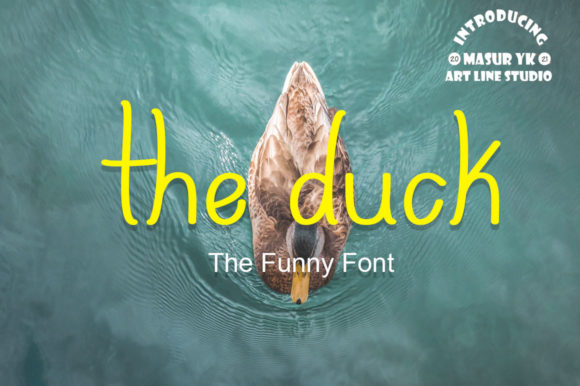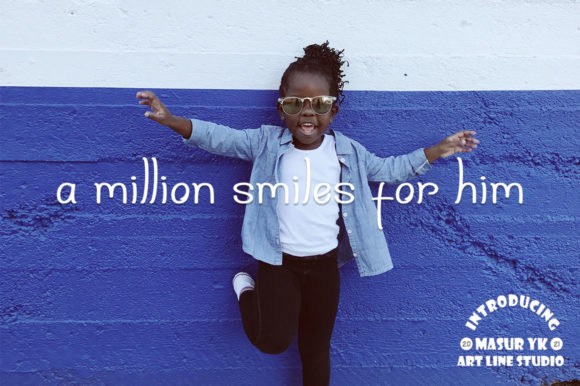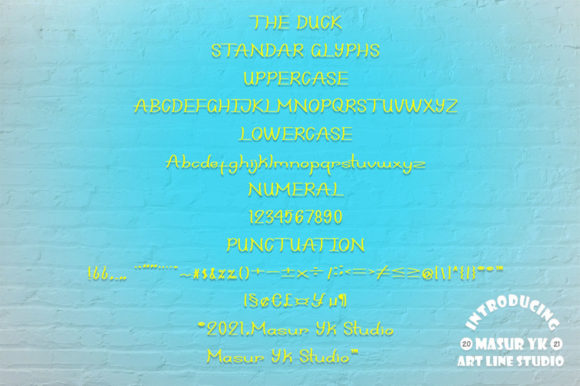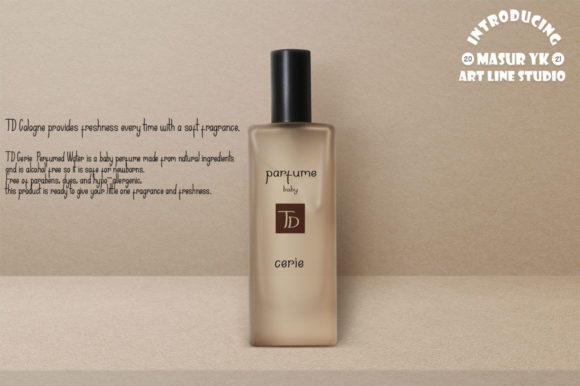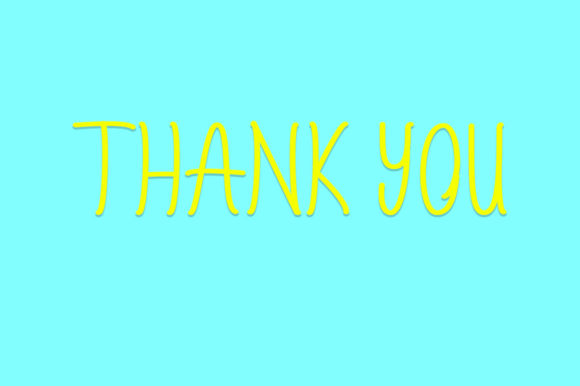
The Duck Font
About The Duck Font
The Duck is a cute and simple lettered handwritten font. Whether you use it for cartoon related designs, children games or just any creation that requires a lovely touch, this font will be an amazing choice.